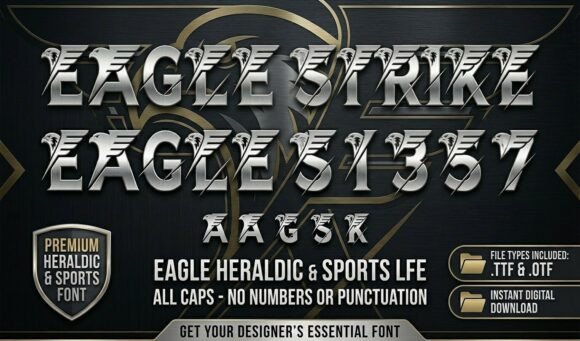
Eagle Strike Font: Unleash Speed, Power, and Competitive Edge in Your Designs
Are you looking for a font that can bring a dynamic, bold, and athletic feel to your designs? Look no further than the Eagle Strike Monogram Font! This powerful display font is perfect for sports-themed projects, featuring heavily stylized capital letters with a fast, forward-slanting athletic look. The unique integration of a fierce eagle head and wing into the top left of every letter, combined with a sharp, swooping slash cutting through the letter stems, creates an incredible sense of motion and speed.
Key Features of Eagle Strike Font
- Dynamic and Bold Design: The Eagle Strike Font boasts a heavily stylized capital letter design, perfect for making a statement in your projects.
- Integrated Eagle Head and Wing: A fierce eagle head and wing are seamlessly integrated into the top left of every letter, adding a touch of ferocity and strength.
- Sharp, Swooping Slash: A sharp, swooping slash cuts through the letter stems, creating a sense of motion and speed.
- Athletic and Competitive Look: The font’s forward-slanting design gives it an athletic and competitive edge, perfect for sports-themed projects.
Perfect for Sports-Themed Projects
The Eagle Strike Font is specifically designed for sports-themed projects, making it the perfect choice for:
- E-Sports Team Logos: Create a striking and memorable logo for your e-sports team with this dynamic font.
- Athletic Apparel: Use the Eagle Strike Font to create eye-catching high school or college athletic apparel.
- Racing Graphics: Add a touch of speed and power to your racing graphics with this bold font.
- Patriotic Merchandise: Create patriotic merchandise with a bold and athletic twist.
- Tactical Branding: Use the Eagle Strike Font to create tough and masculine monograms for your tactical branding.
Why Choose Eagle Strike Font?
With the Eagle Strike Font, you can:
- Stand Out from the Competition: The unique design of the Eagle Strike Font ensures that your projects will stand out from the competition.
- Convey Speed and Power: The font’s dynamic design effectively conveys speed and power, perfect for sports-themed projects.
- Enhance Your Brand: Use the Eagle Strike Font to create a bold and athletic brand image that resonates with your target audience.
Tips for Using Eagle Strike Font
To get the most out of the Eagle Strike Font, consider the following tips:
- Use it as a Display Font: The Eagle Strike Font is designed to make a statement, so use it as a display font to grab attention.
- Pair it with a Simple Font: Pair the Eagle Strike Font with a simple font to create visual contrast and make your design more readable.
- Experiment with Colors: Try out different colors to find the perfect combination that matches your brand or project’s theme.
In conclusion, the Eagle Strike Monogram Font is a powerful and dynamic display font that can bring speed, power, and a competitive edge to your designs. With its unique integration of an eagle head and wing, sharp swooping slash, and athletic design, it’s perfect for sports-themed projects. Whether you’re creating e-sports team logos, athletic apparel, or tactical branding, the Eagle Strike Font is sure to make a statement.